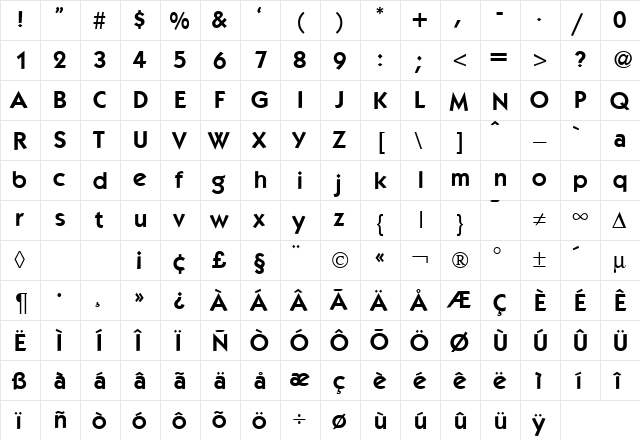
KochModernDemi Regular
Design Context for KochModernDemi Typeface
KochModernDemi is a composed and adaptable typeface that performs quietly and consistently across a wide range of design contexts.